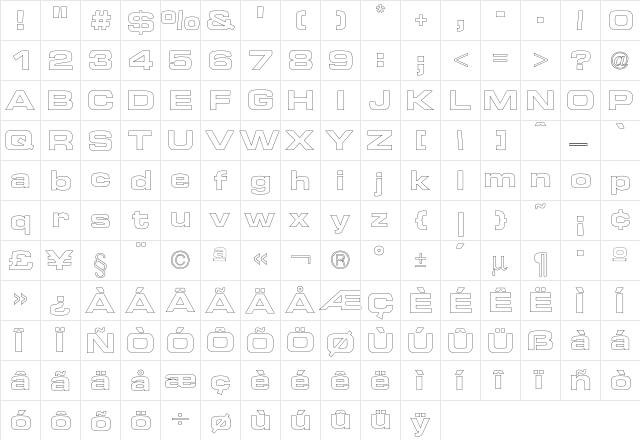
Euro TechnicExtBoldOutline Font Preview
Euro TechnicExtBoldOutline
Design Context for Euro Typeface
Euro has a distinctly futuristic character, with geometric precision and clean angles that feel at home in technology, gaming, and sci-fi contexts. The heavy weight commands attention and anchors typographic hierarchies.